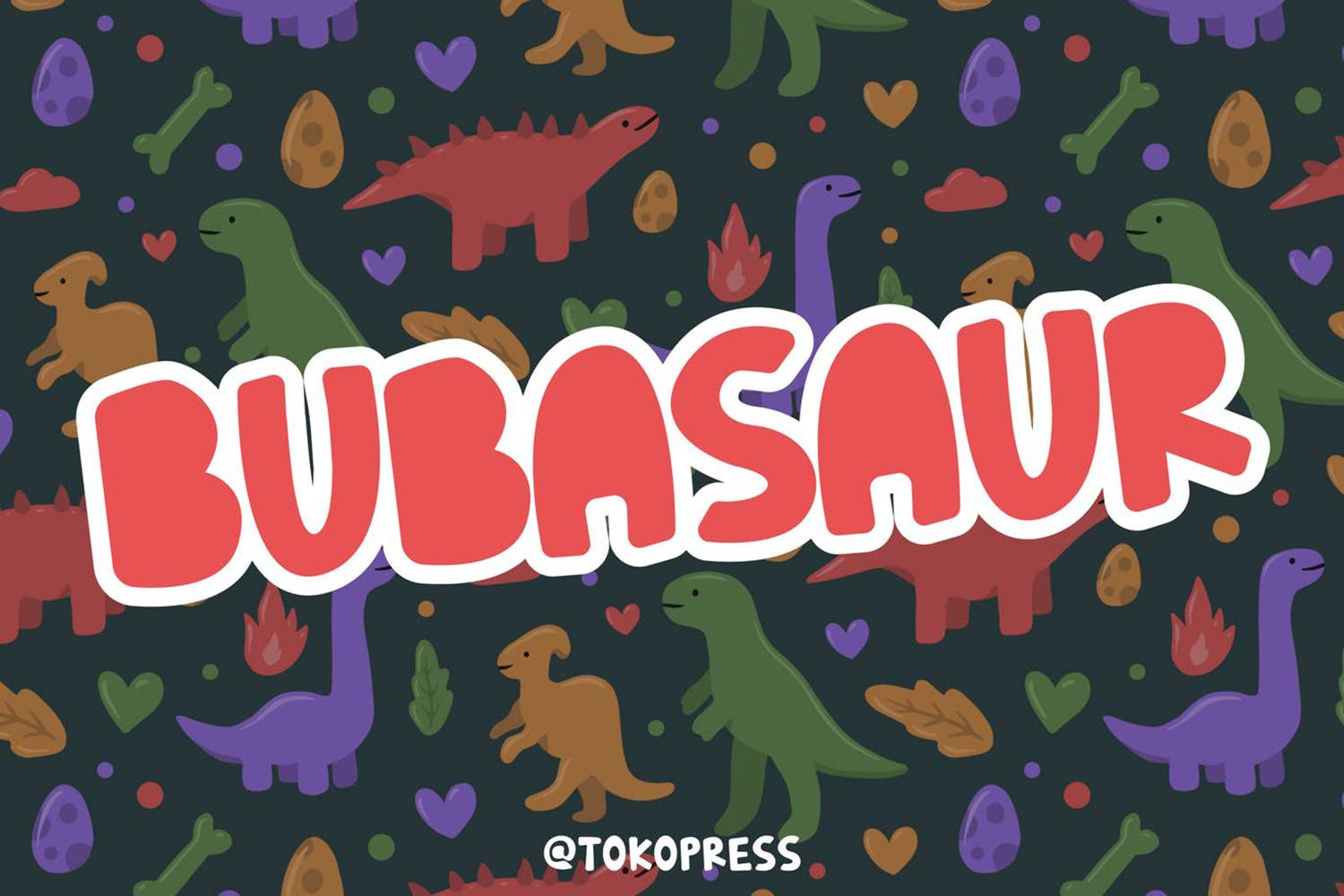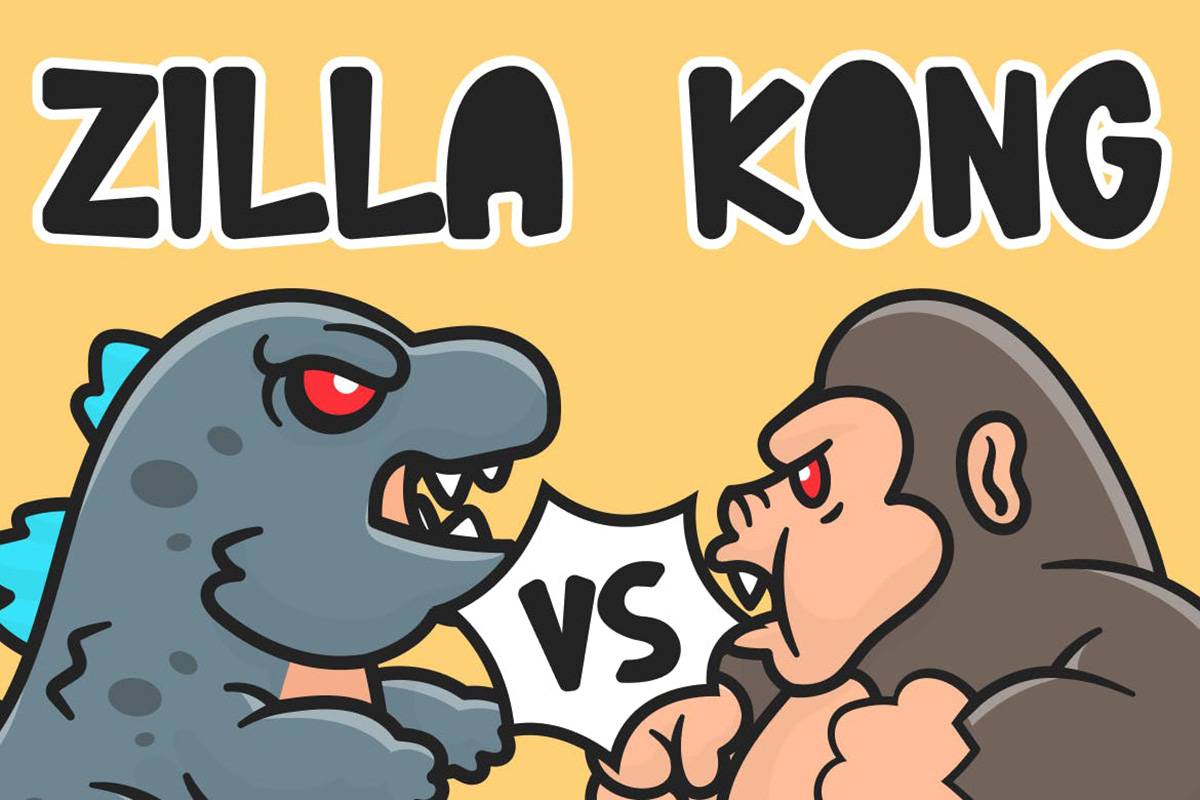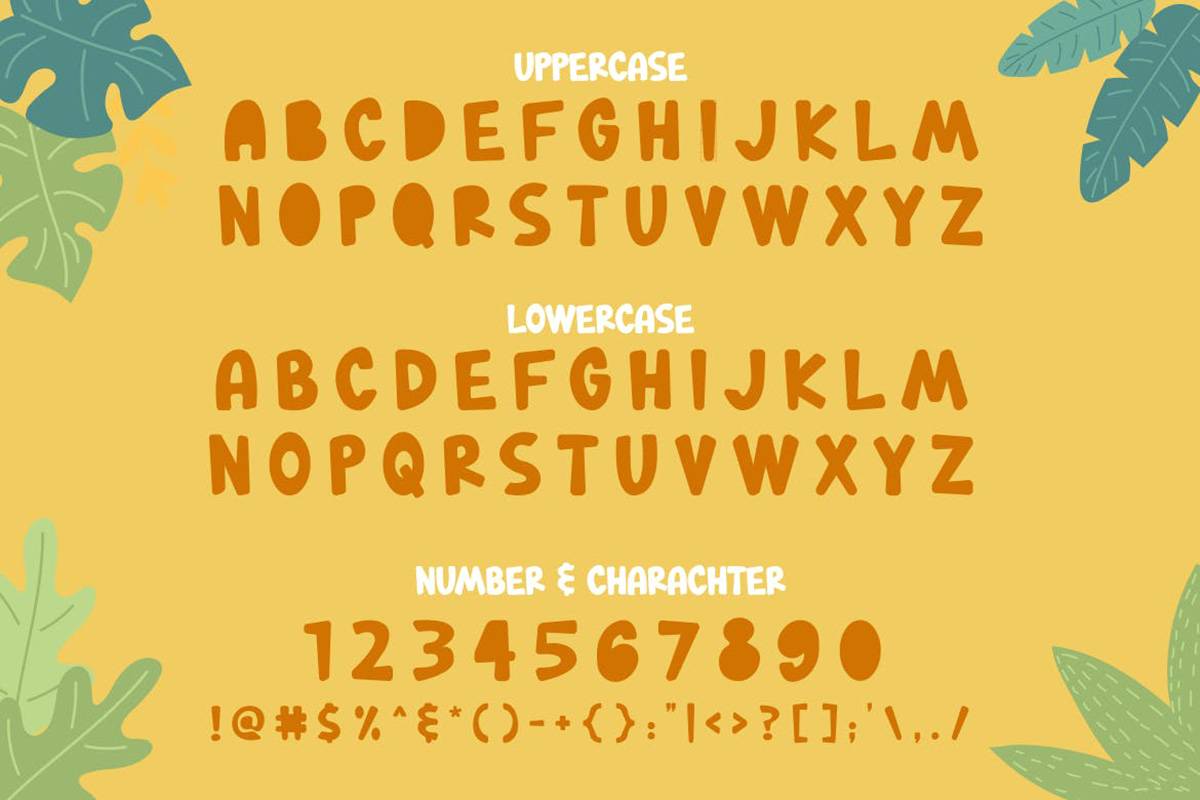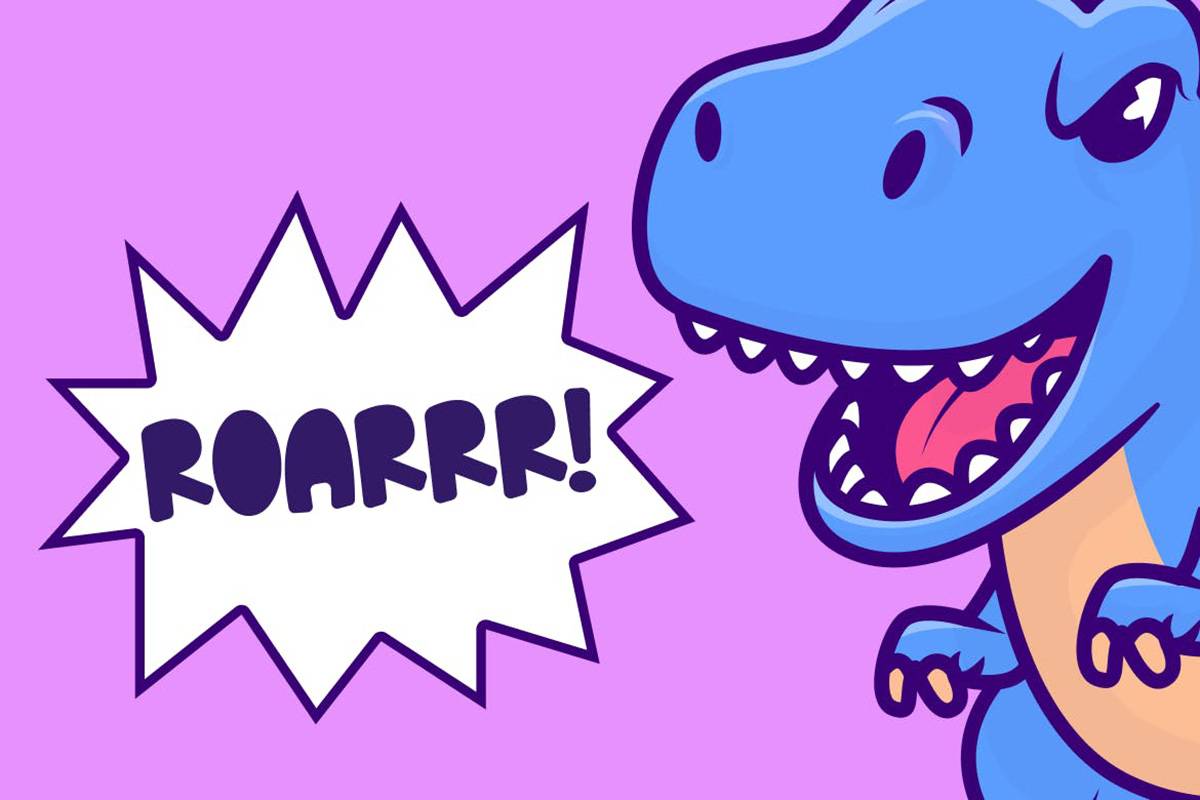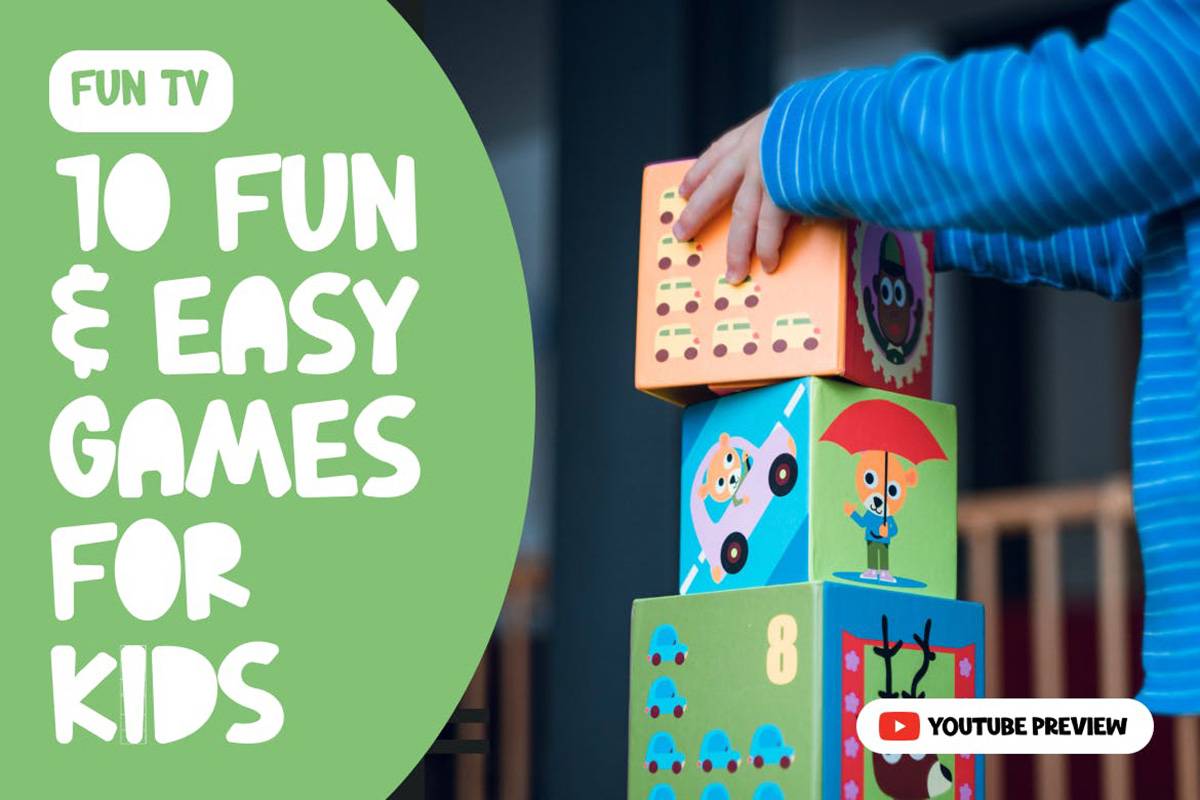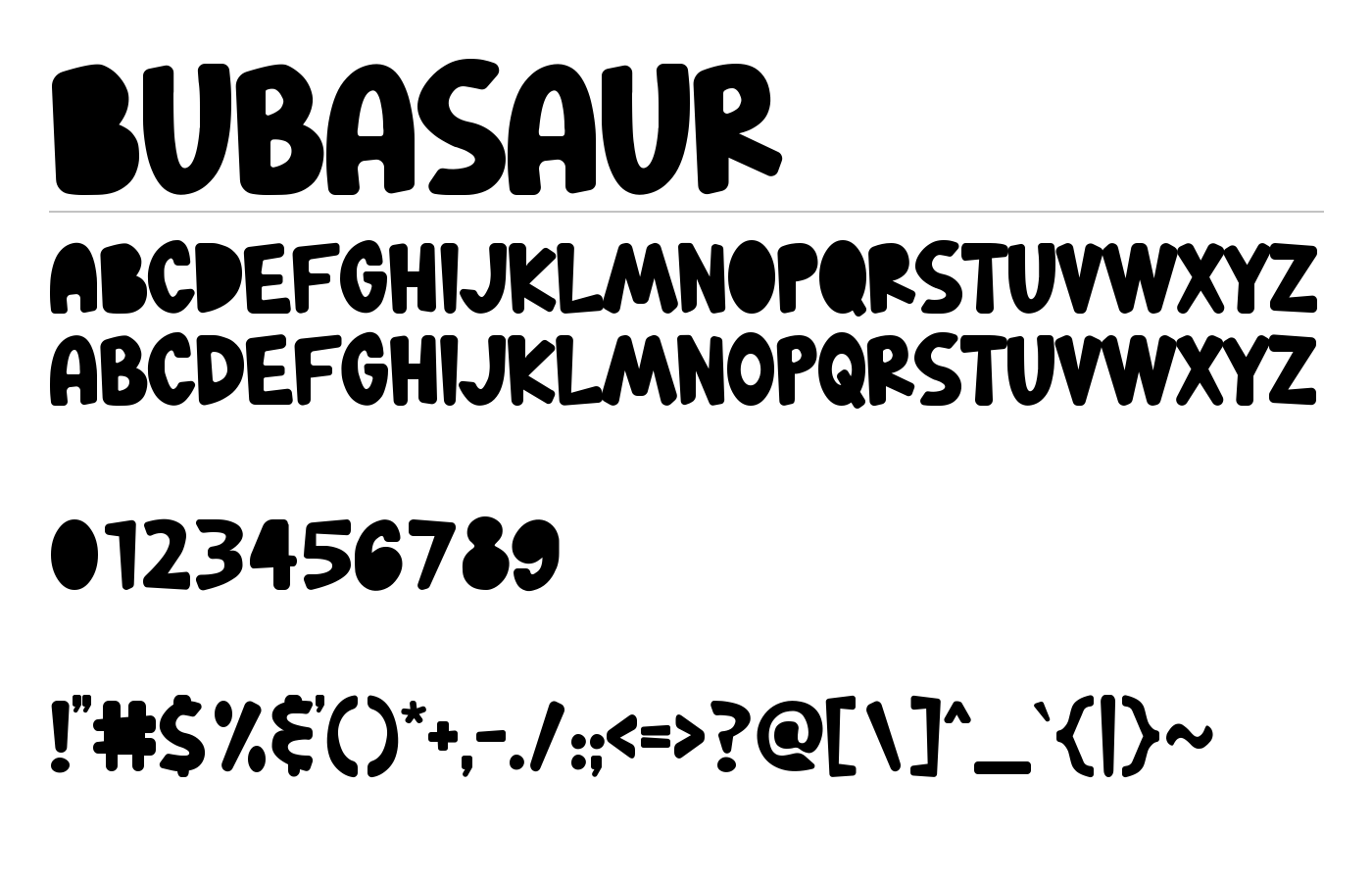
Bubasaur is a bold, playful sans serif typeface with rounded, chunky letterforms that convey a friendly and approachable personality. Its bubbly, slightly irregular shapes make it perfect for fun, informal designs such as children's books, logos, and casual branding, where a touch of whimsy and warmth is desired. This font stands out best in headlines or display use, adding a lively and cheerful vibe to any project.
Bubasaur Font
About Bubasaur Font
| Font family | Bubasaur Font |
| Designer | Tokopress Team |